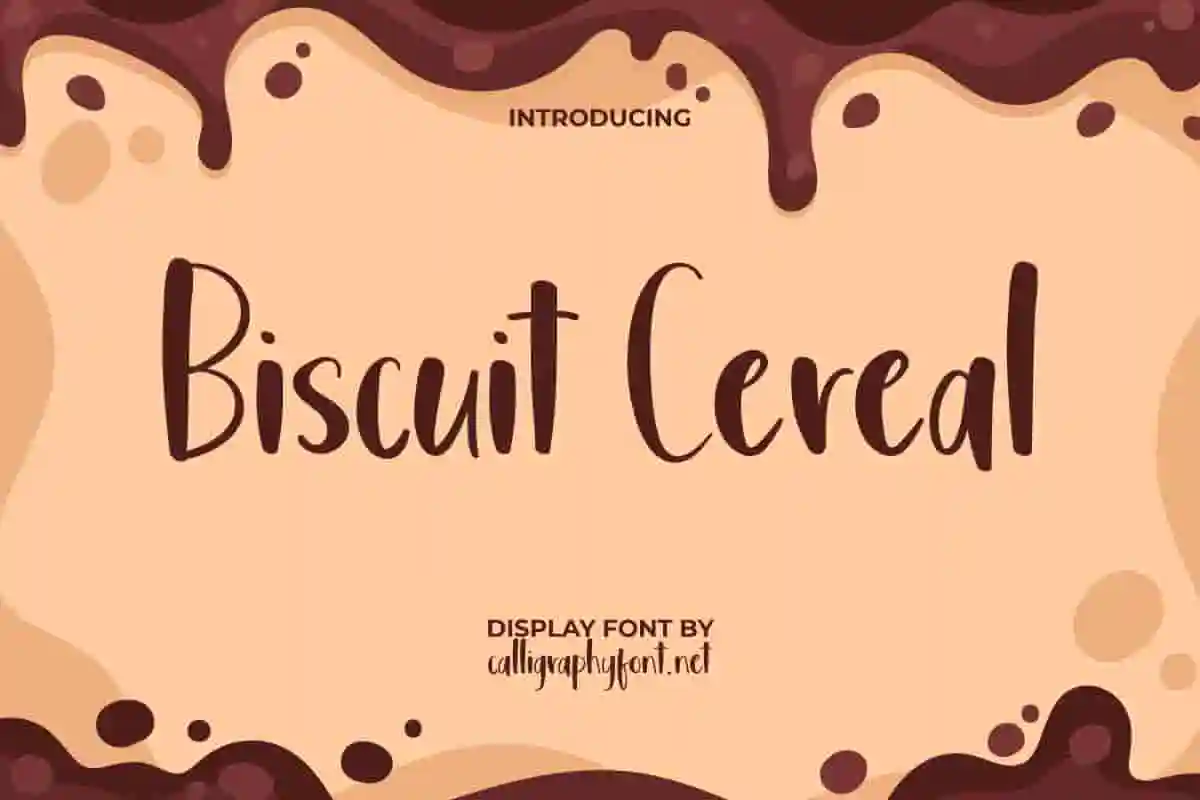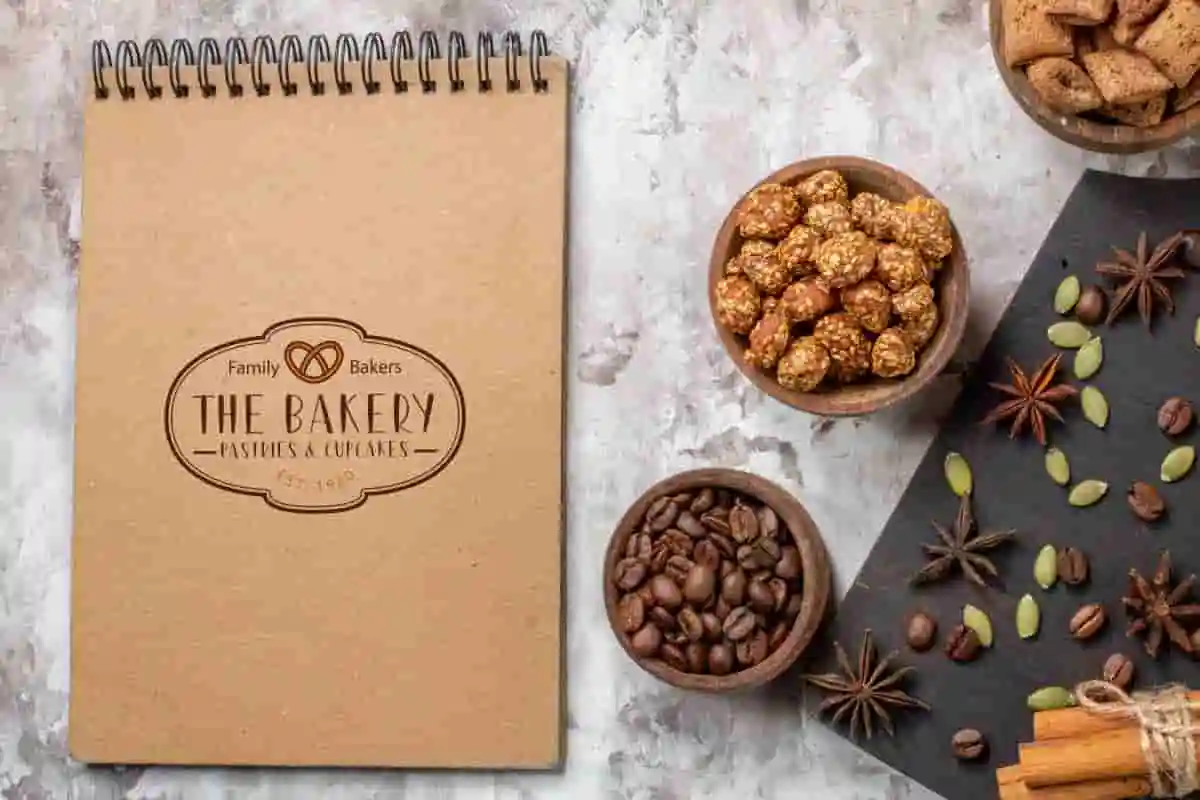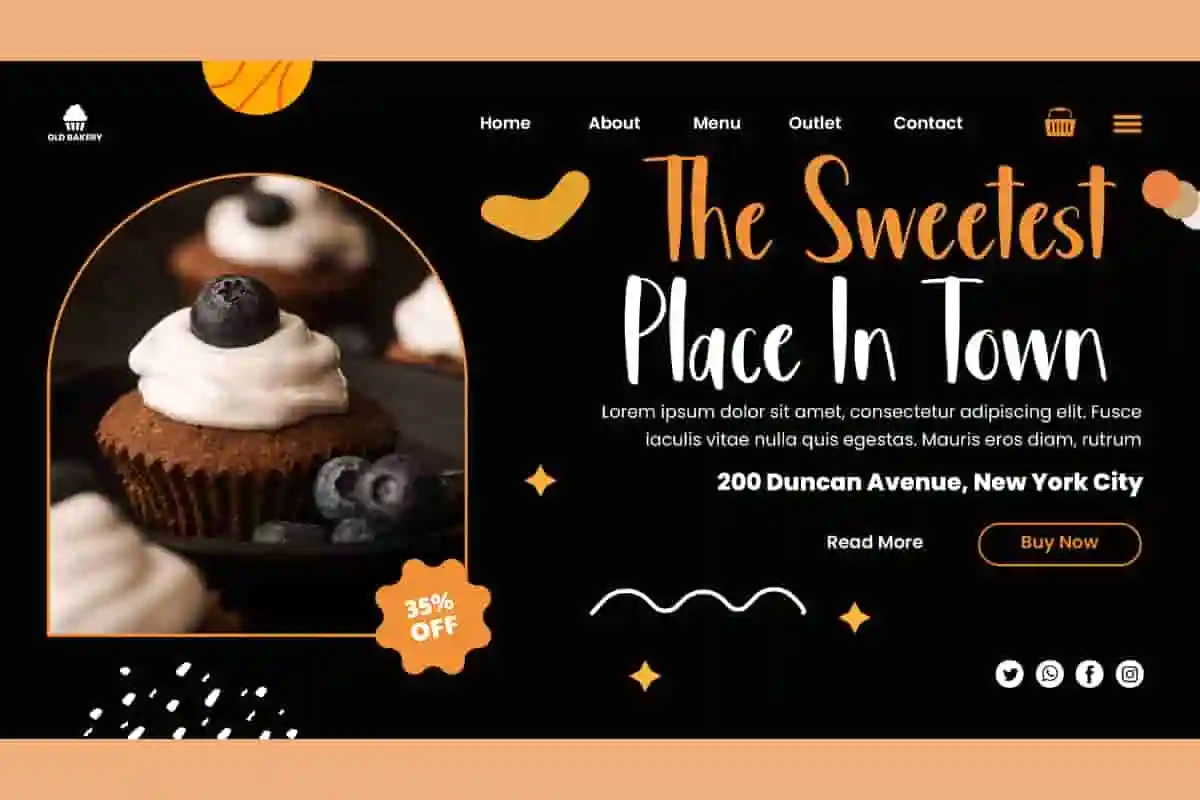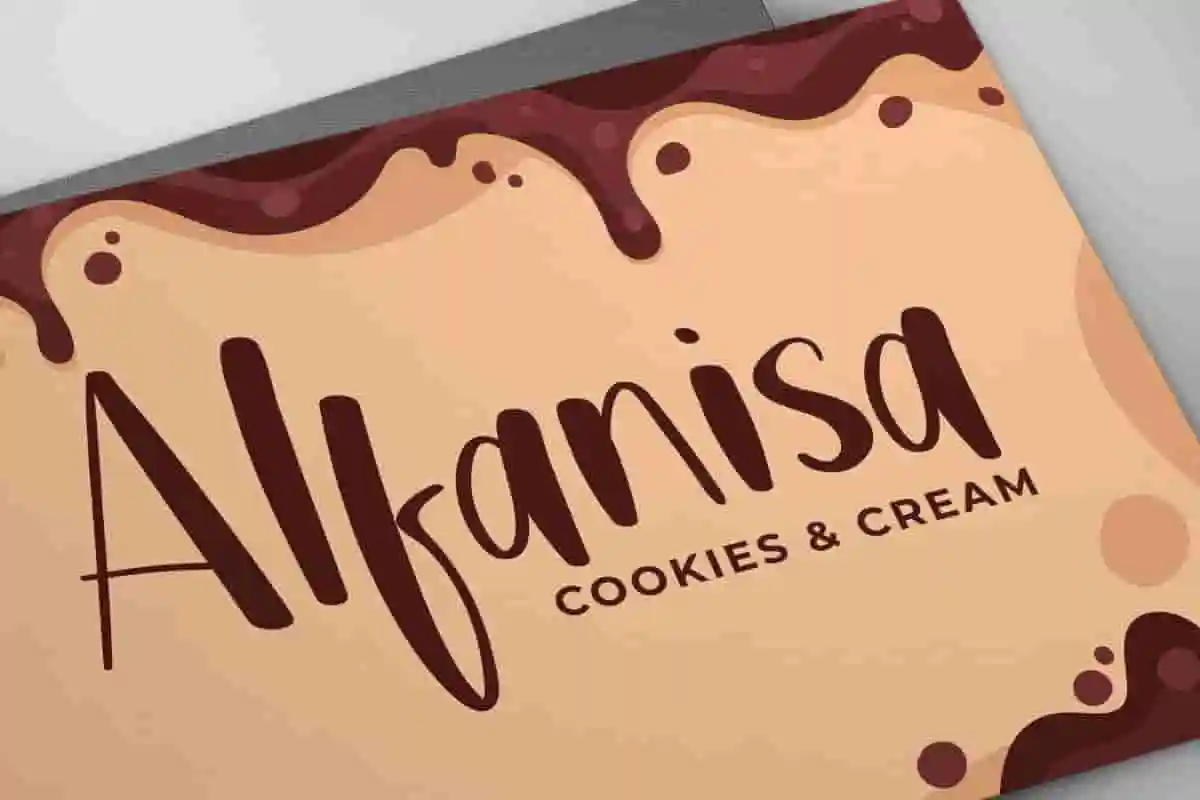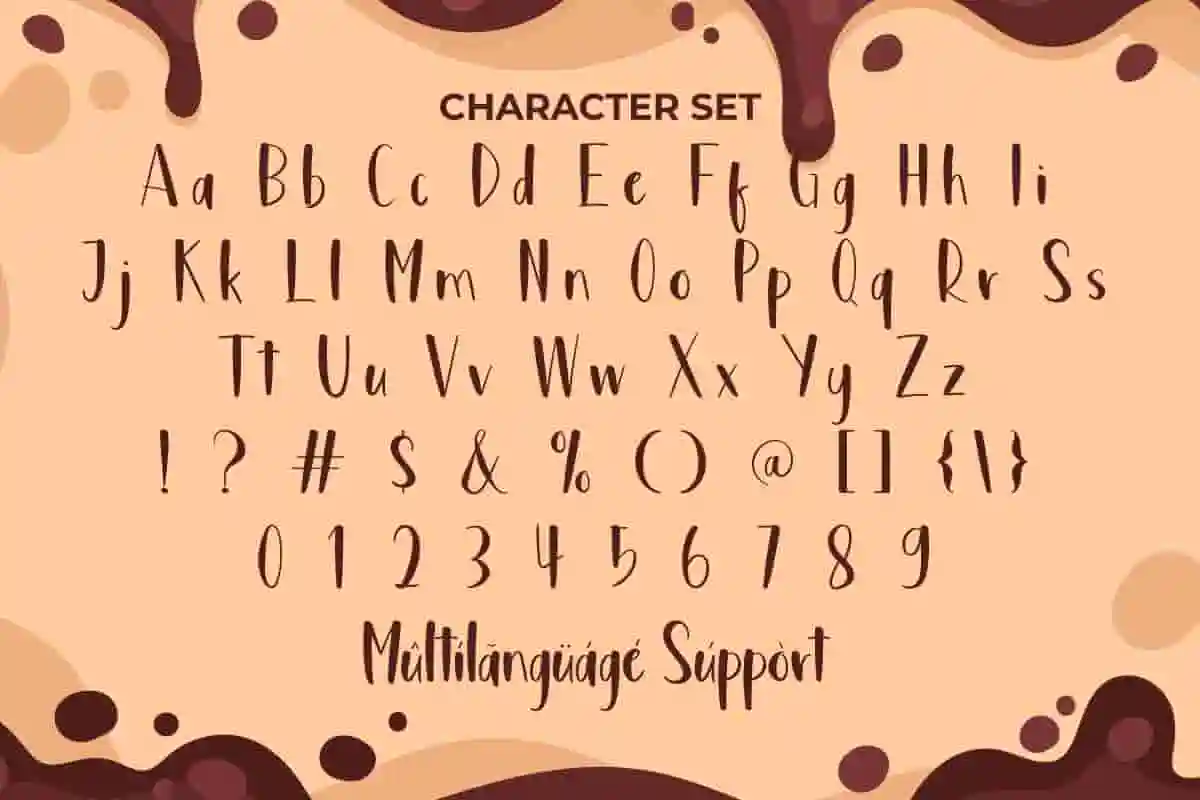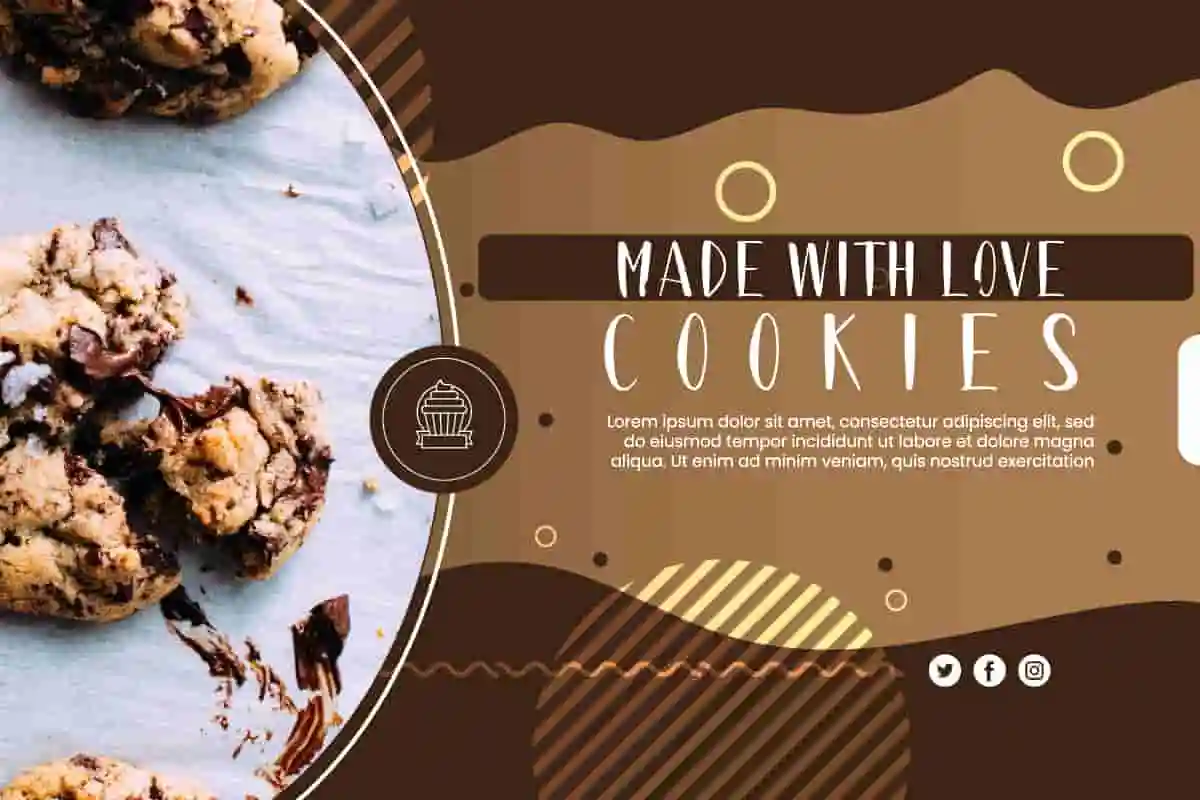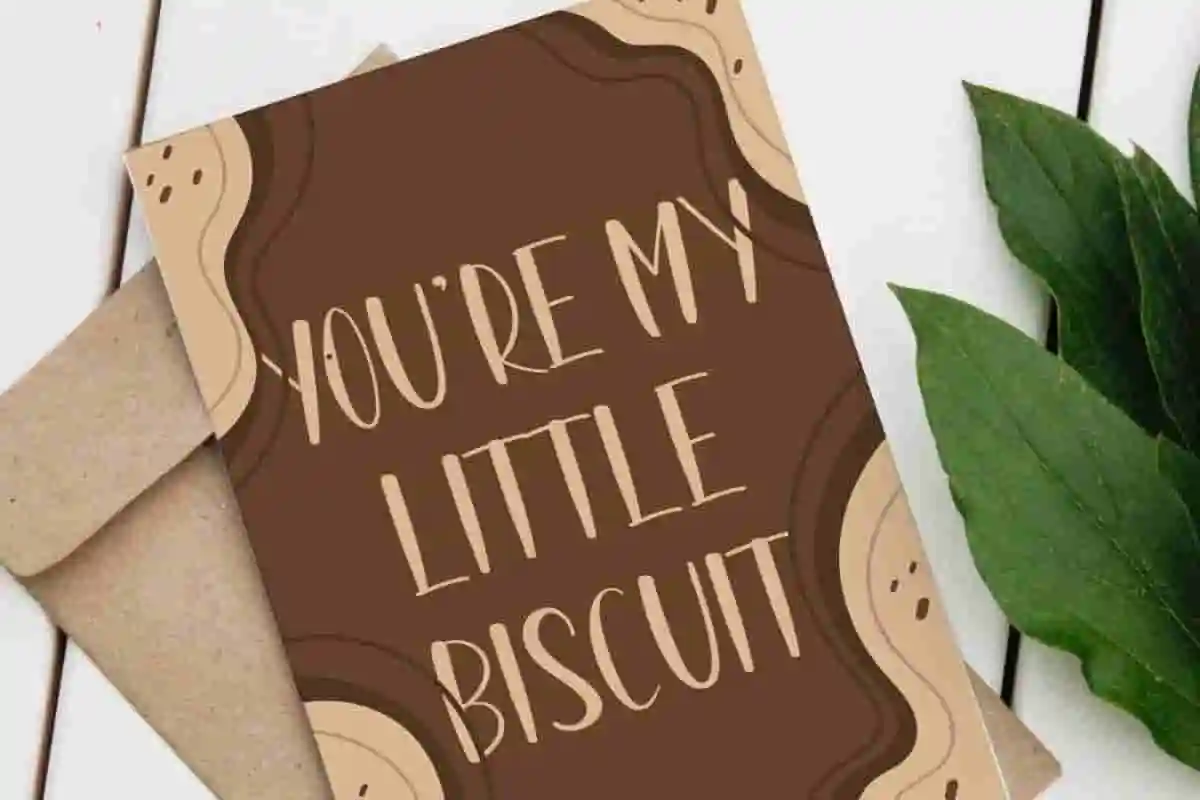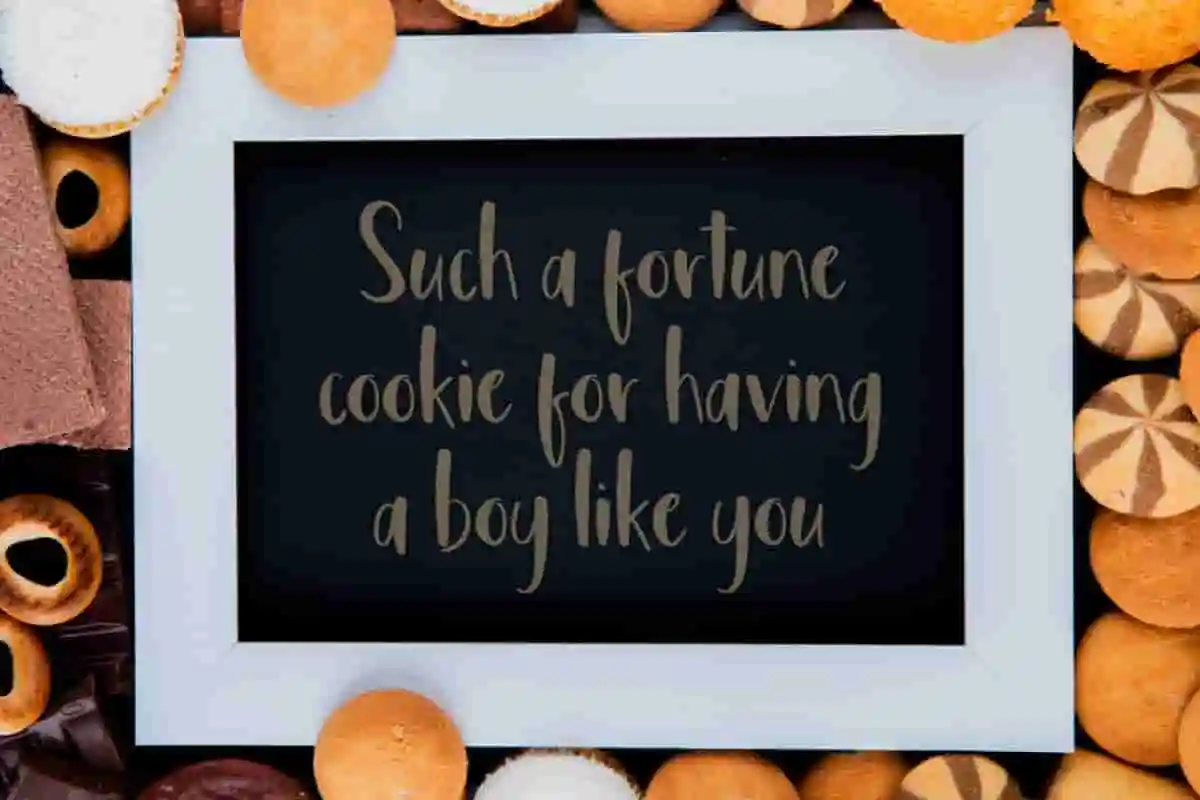
Biscuit Cereal Font
Biscuit Cereal Font is a sweet display cartoon font with a fun look for multipurpose projects both for business and personal purposes.
Biscuit Cereal Font is a sweet display font that brings a handcrafted personal touch and will complement your designs, such as blogs, brand identity, brochure, business cards, cover, flyer, greeting cards, header, headline, invitation, logo design, packaging design, art posters, quotes, restaurant menu, screen print, stationery, title, website, much more!
Bring fun, joy, and personality to your designs with Biscuit Cereal Brush Font, a delightful display font that combines charm, creativity, and readability. Whether you’re a designer, entrepreneur, or content creator, this font is your perfect ingredient to add a playful touch to any project.
Inspired by the warmth of homemade treats and the cheerful vibe of morning breakfasts, Biscuit Cereal Brush Font is designed to make your work stand out. Its rounded, bold, and quirky letterforms are easy to read while giving off a friendly and approachable feeling. This makes it perfect for children’s books, food packaging, product branding, invitations, posters, logos, and social media graphics.
With its unique style, Biscuit Cereal Brush Font balances creativity and functionality. Each character is carefully crafted to ensure smooth flow, making your text look polished and eye-catching. Whether you want to highlight a playful brand identity, design delicious-looking menus, or create fun merchandise, this font will help capture attention and deliver your message beautifully.
Biscuit Cereal Brush Font is inspired by the theme of sweet food so it can bring a natural and carefree feeling. This will make it the sweetest font you’ve ever seen! It will play an important role in whatever your industry, such as bakery or pastries, cafe, candy shop, event organizer, fashion, graphic design, handicraft, movie, photography, printing, publishing, and more.